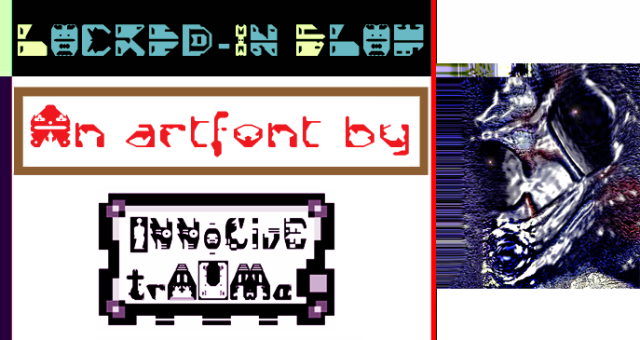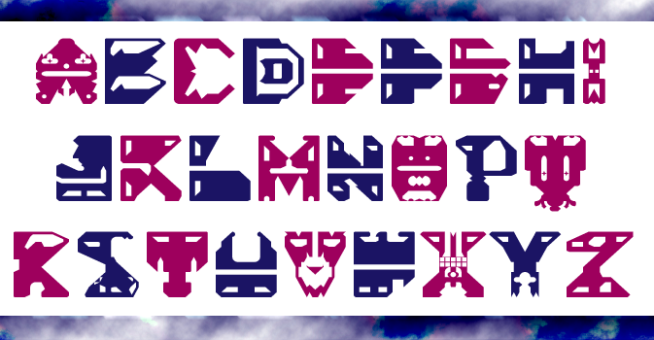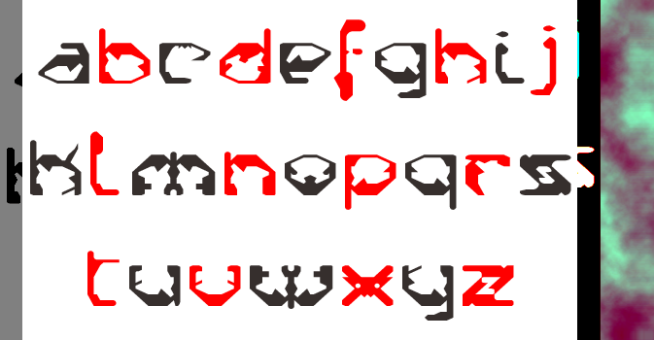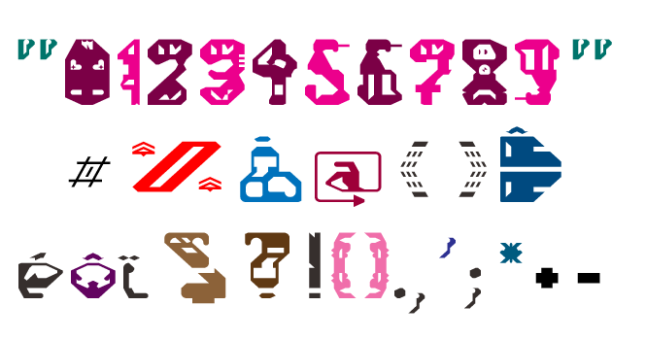
trAUMa 39 / Locked-in Glow
"Locked-in Glow", like all the "trAUMa" series, works at the frontier between Art & Type Design, Figuration & Abstraction, each font is a comprehensive world in which every glyph is a "living" entity. But put together they can produce your messages in the most accurate way.